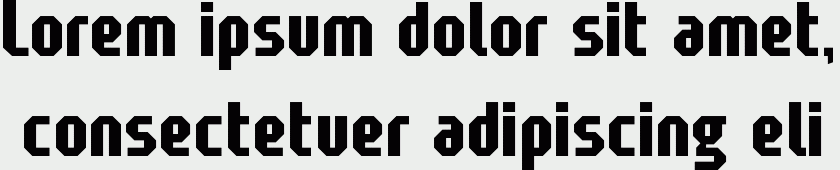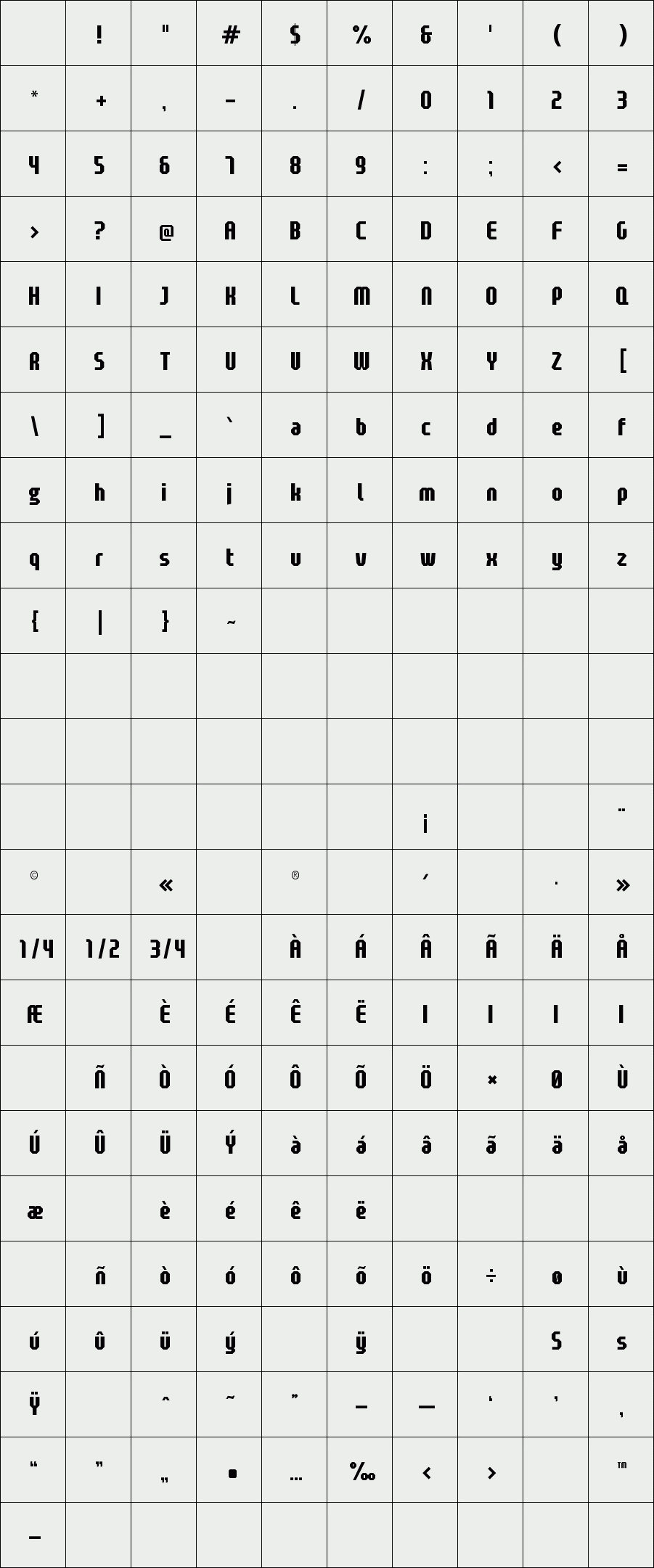
Superbix
Superbix Condensed
Superbix
/ Superbix Condensed
Superbix Condensed
superbix is a modern street typeface. It consists of 14 font in different weights.
Jan-Christian Bruun